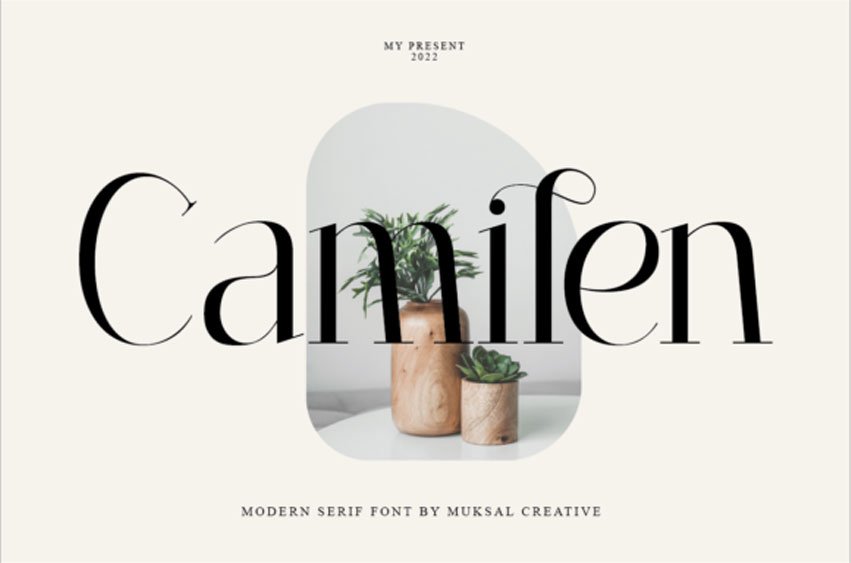
Camilen Font is a thin-lettered and stylish serif font.
Whatever the topic, this font will be a wonderful asset to your font library, as it has the potential to enhance any creation.